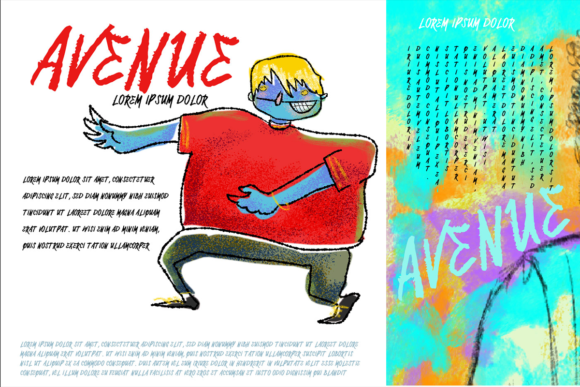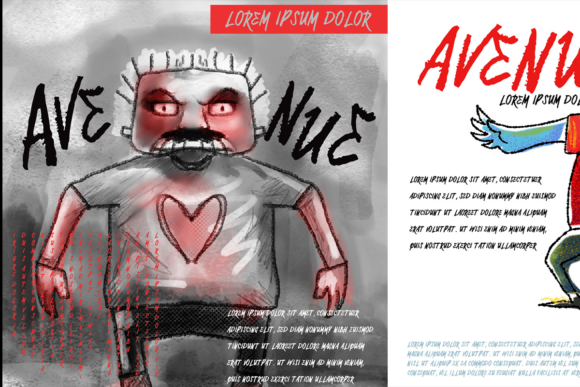
Avenue Font
About Avenue Font
Avenue is an awesome new script font that you just have to use in your new projects.With a quirky design this stylish font can be used in a variety of applications such as posters, funny post cards, stationary art and much more.